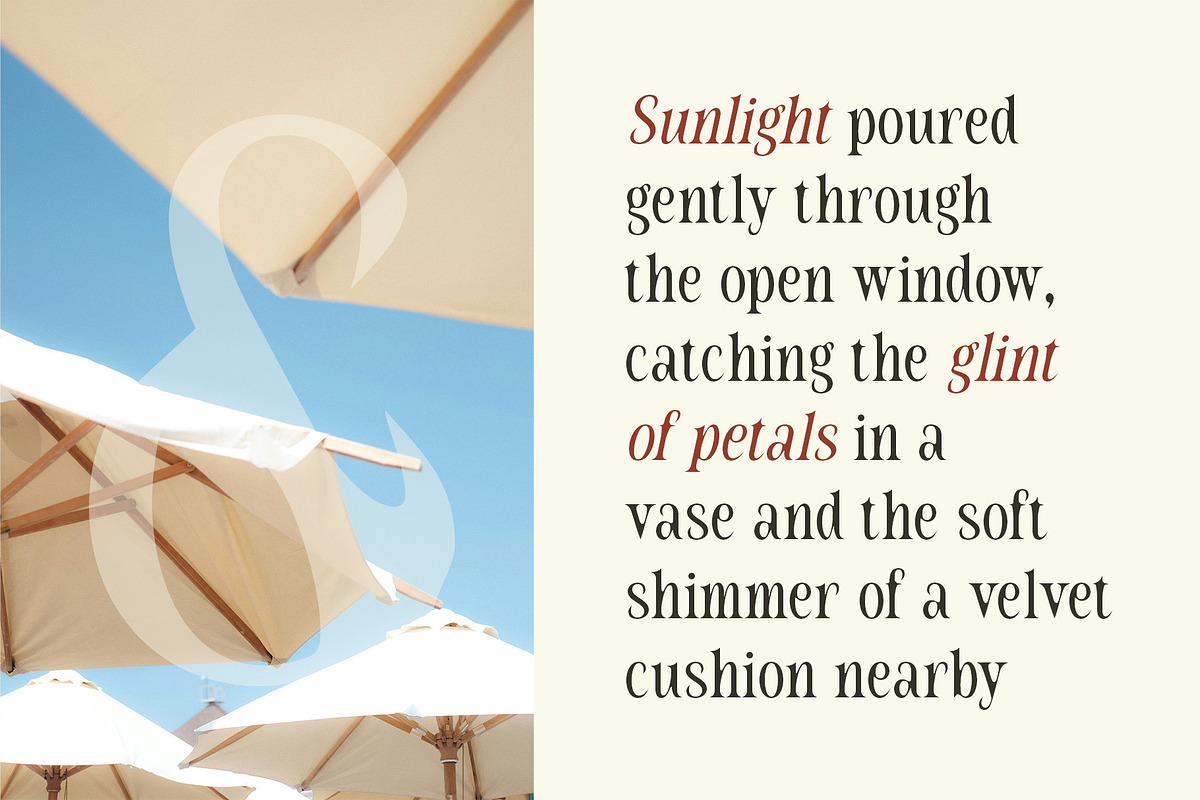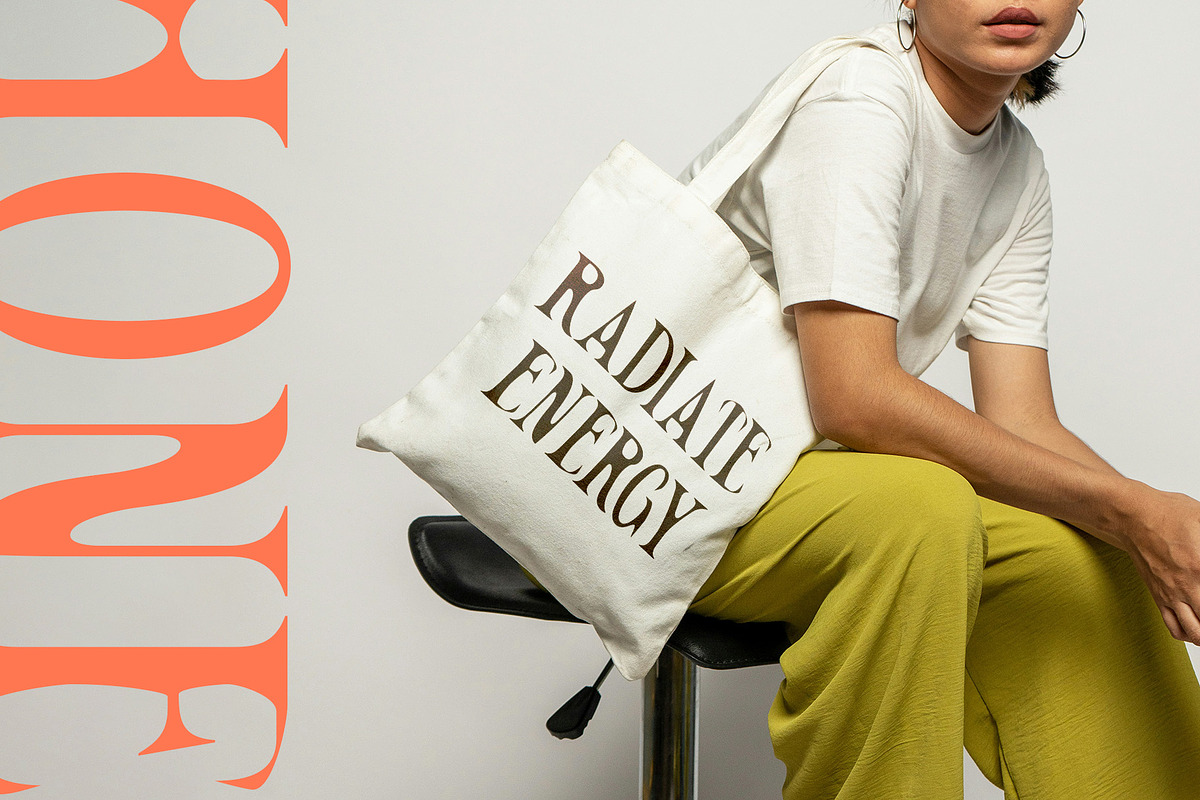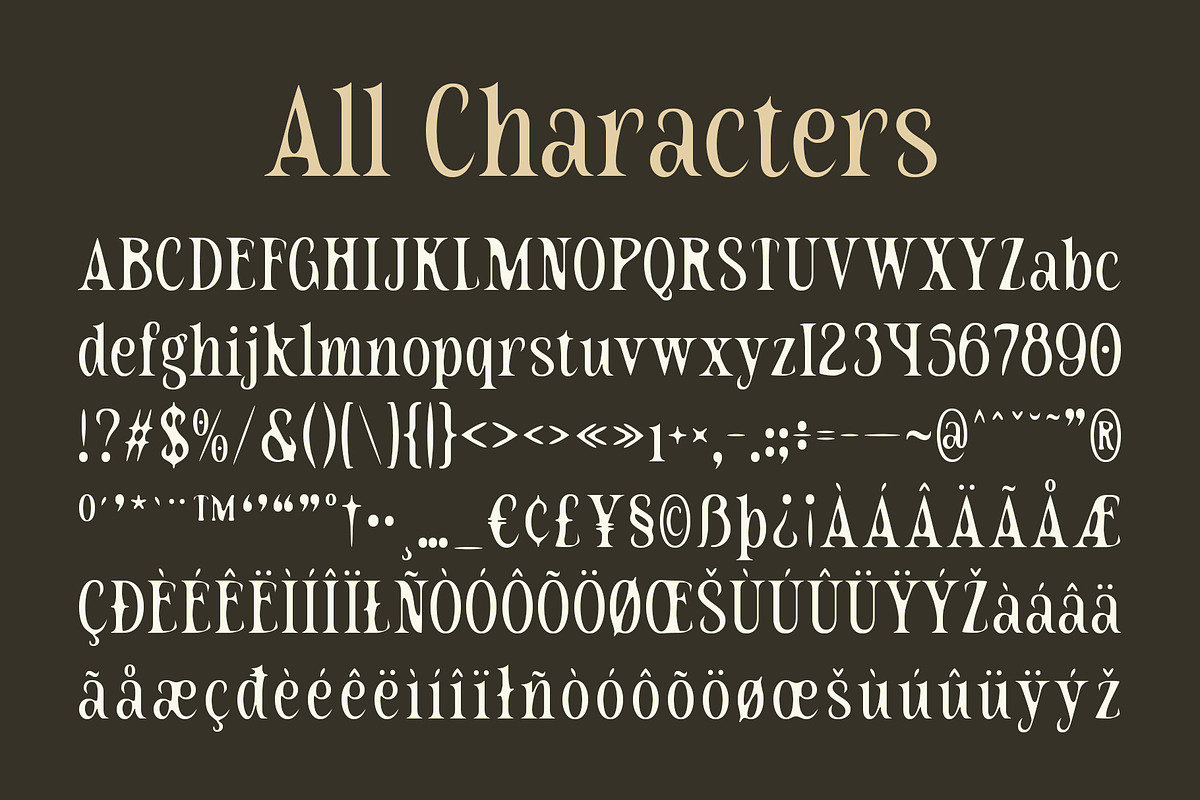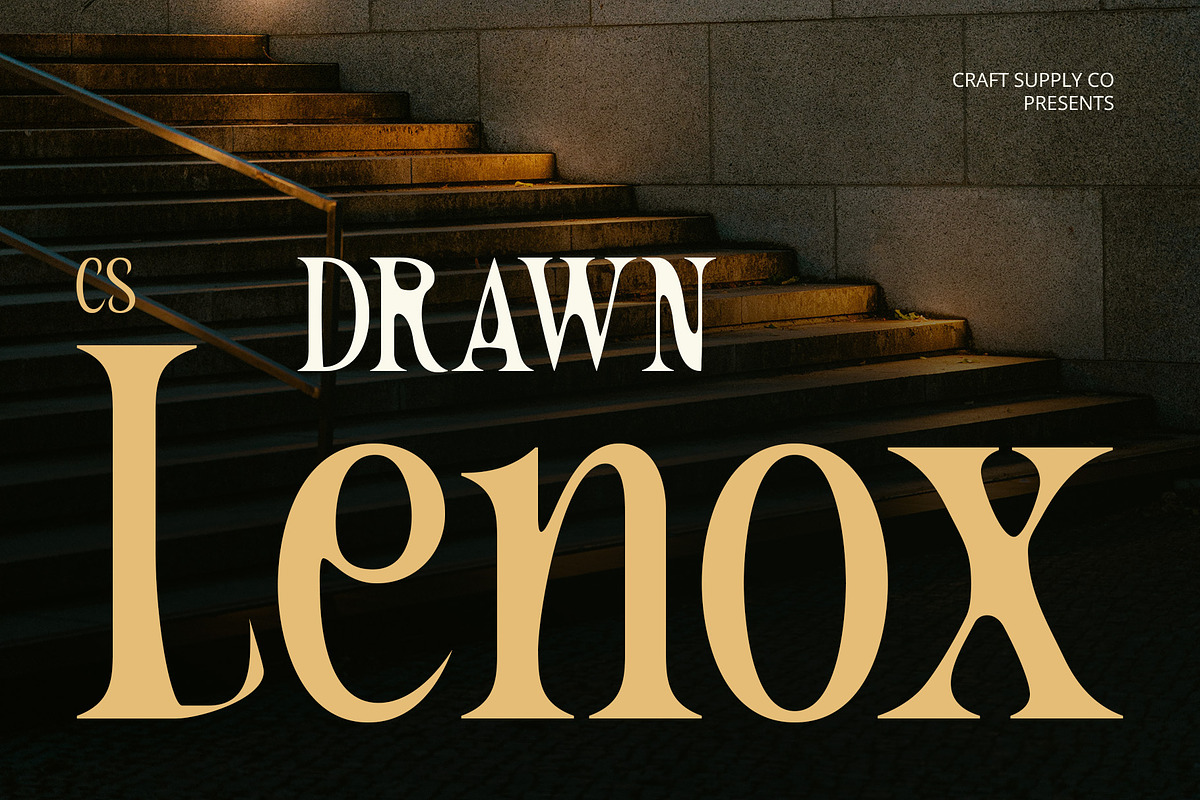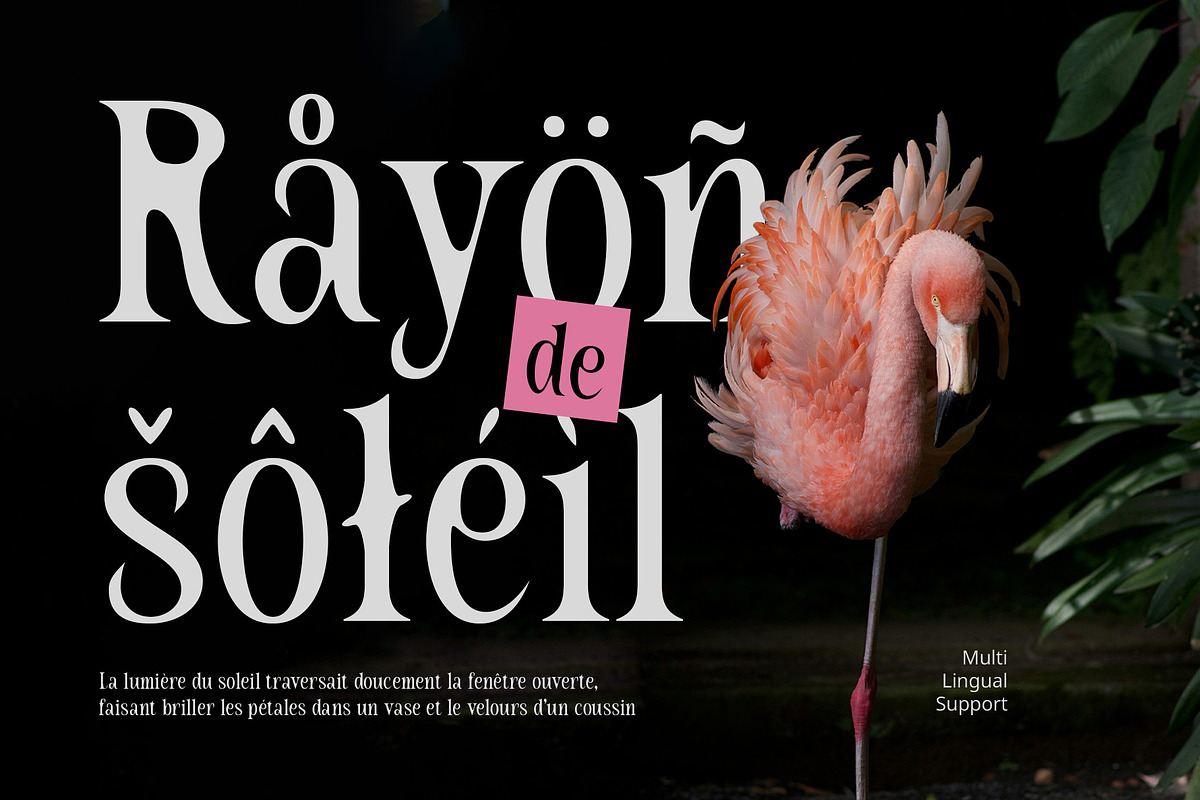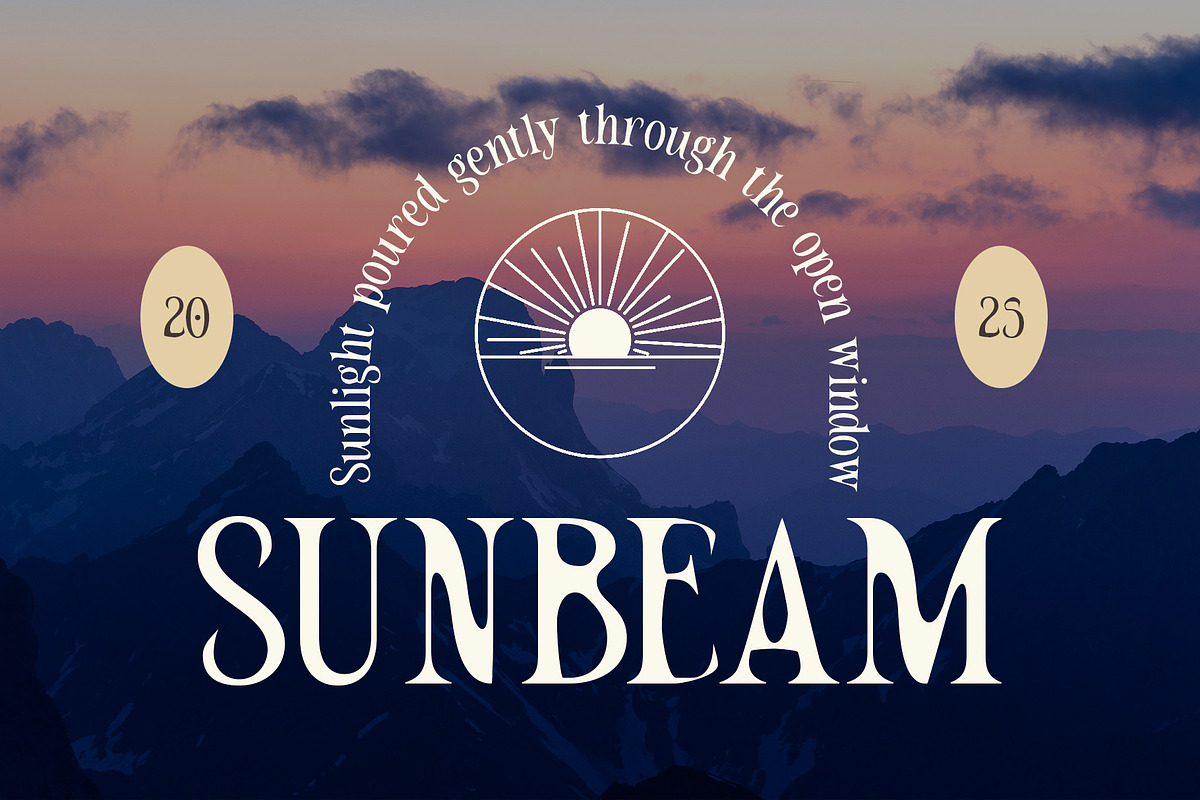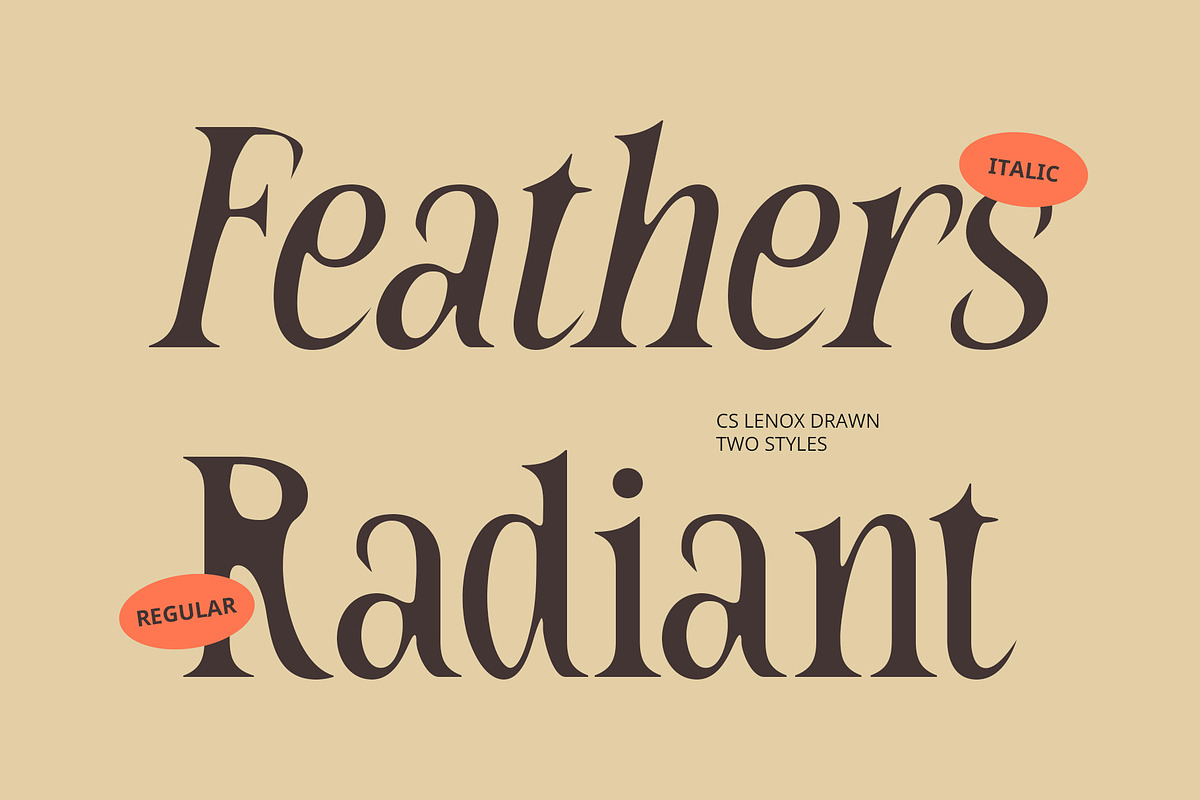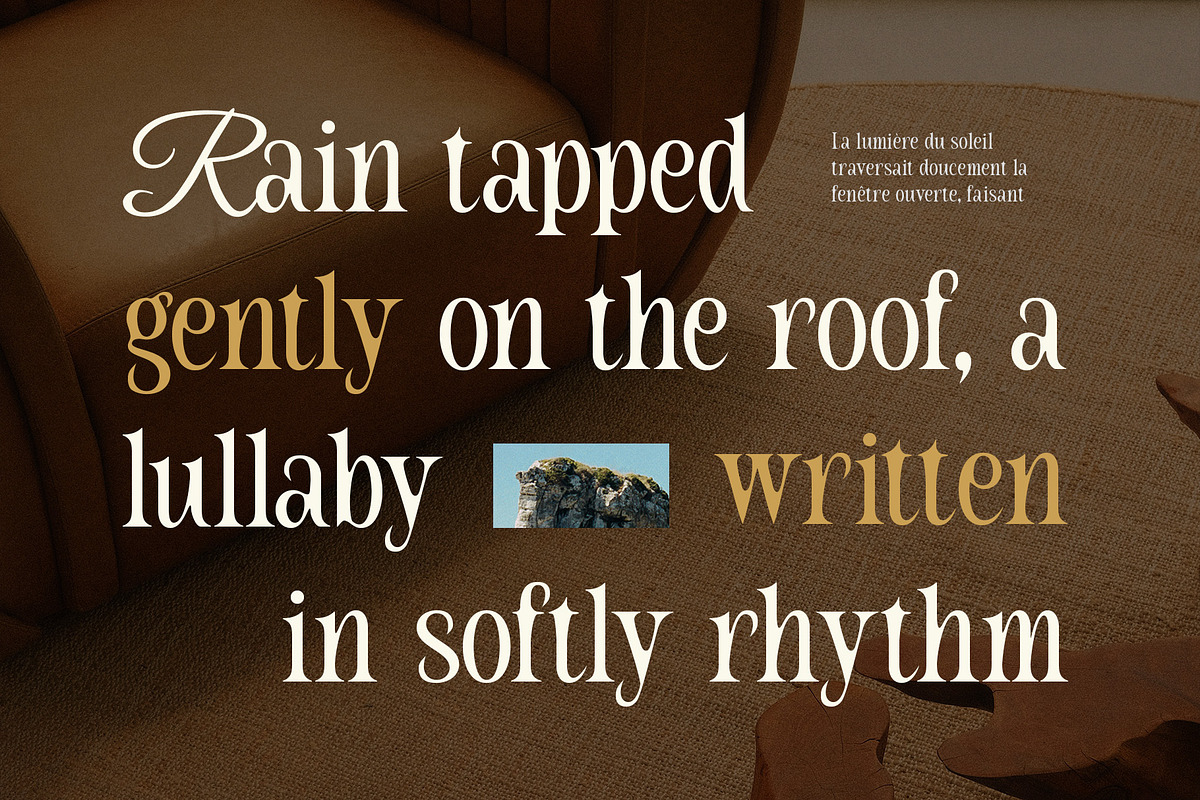
CS Lenox Drawn
CS Lenox Drawn – Graceful Precision with Handcrafted Soul
Modern Condensed Serif with Drawn Texture This is a modern serif font that features a condensed and slender form, evoking a sense of elegance, lightness, and refined femininity. With its clean, minimalist design, this font is crafted to bring a sophisticated and high-end feel to any layout—perfect for editorials, fashion branding, or beauty packaging.
Slender Proportions for Elegant Design The thin, condensed letterforms create an elevated and graceful tone, ideal for space-conscious layouts that still need to deliver a strong visual impact. This contemporary font balances elegance and clarity, making it suitable for modern designs that require both delicacy and structure.
Drawn Effect for Organic Personality The hand-drawn texture introduces a subtle layer of imperfection and warmth, softening the clean serif structure with a touch of natural charm. This adds character and visual interest, making the font feel more personal, artisanal, and expressive.
Ideal for Refined Yet Artistic Projects Whether used in editorial spreads, brand identities, packaging, or social media visuals, this effortlessly conveys refined elegance with a creative twist. Its combination of modern precision and handcrafted texture makes it perfect for projects that aim to look stylish, graceful, and full of character.